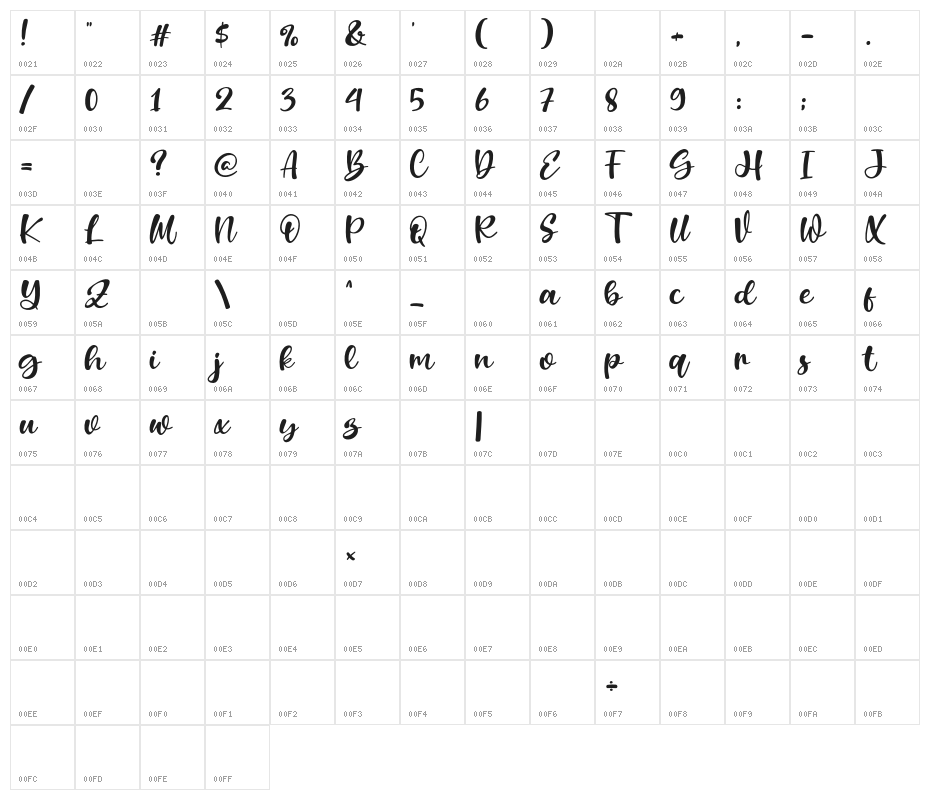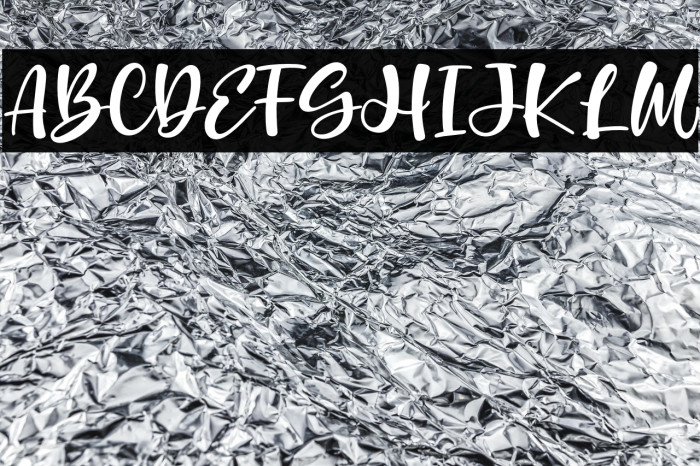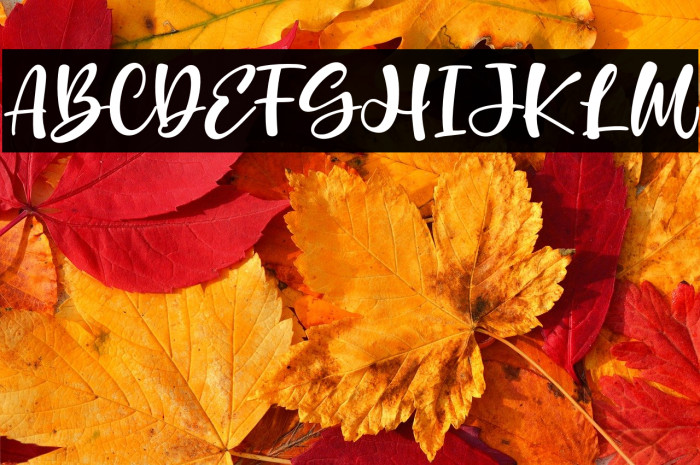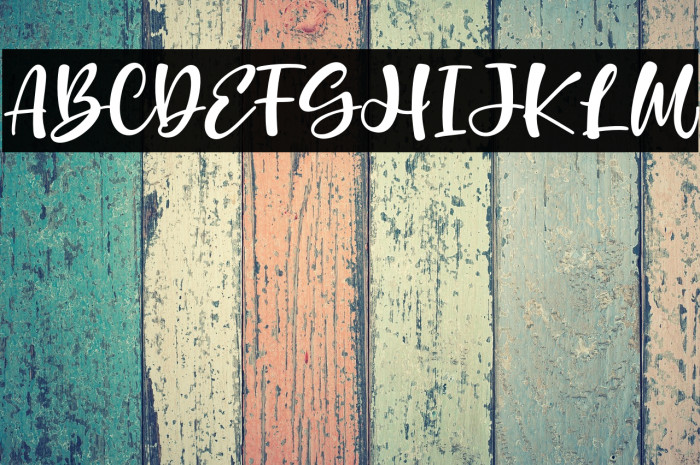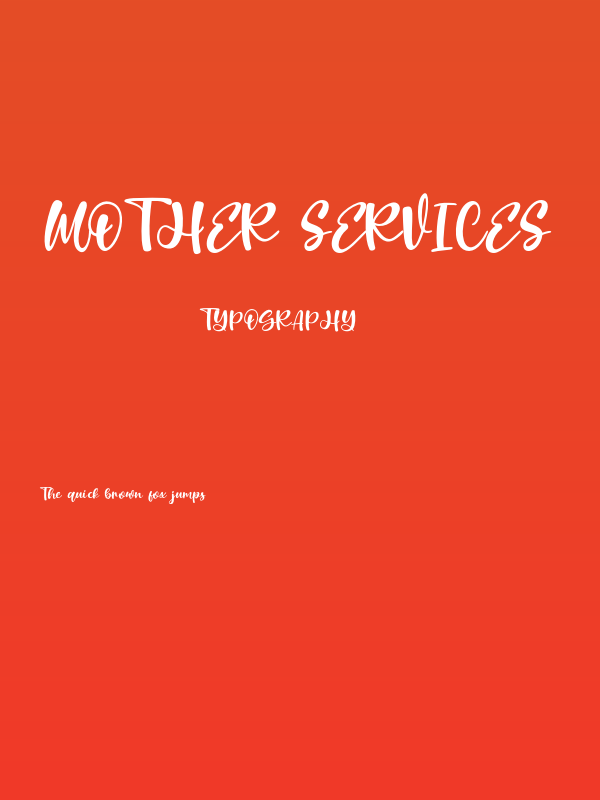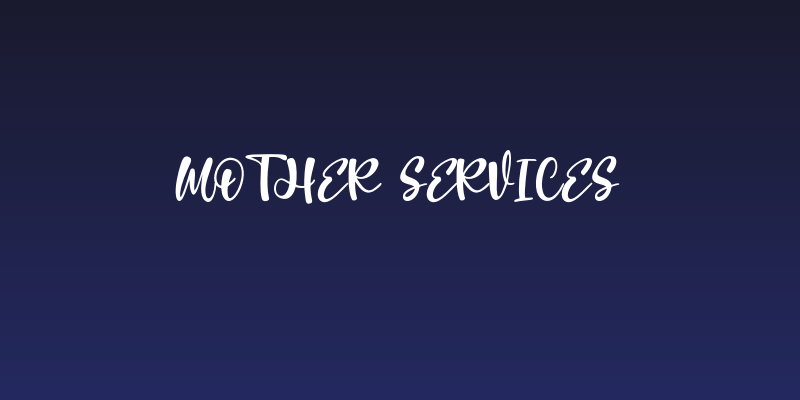
Mother Services Font
Mother Services Description
This font features a bold, flowing script style that exudes elegance and personality. The characters are interconnected, creating a seamless and fluid appearance. The uppercase letters are slightly more elaborate, with decorative flourishes that enhance their visual appeal. The lowercase letters maintain a consistent style, with smooth curves and rounded edges. Numbers and special characters are designed to match the overall aesthetic, ensuring a cohesive look across all text elements. The font's bold weight and medium contrast make it highly legible while retaining its artistic flair.
| Proposed Projects | Ideal for wedding invitations, branding, greeting cards, and elegant signage. |